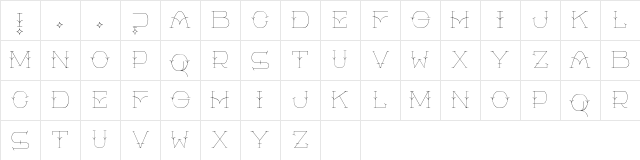
A Glimpse Regular
Foundry: Font Monger
Designer: Chris Vile
Design Context for A Glimpse
A Glimpse is a composed and adaptable typeface that performs quietly and consistently across a wide range of design contexts.